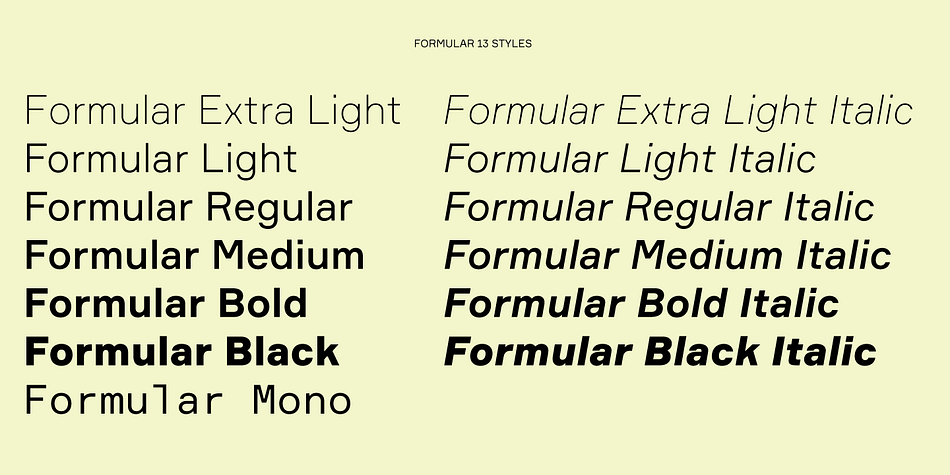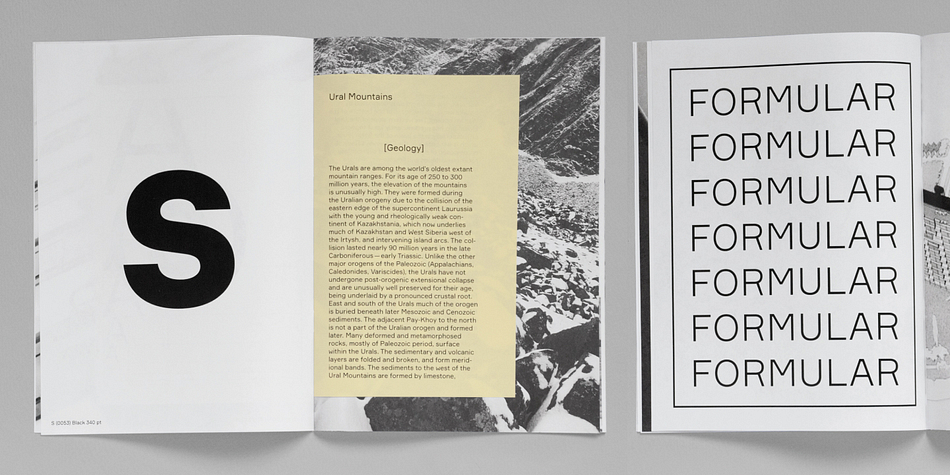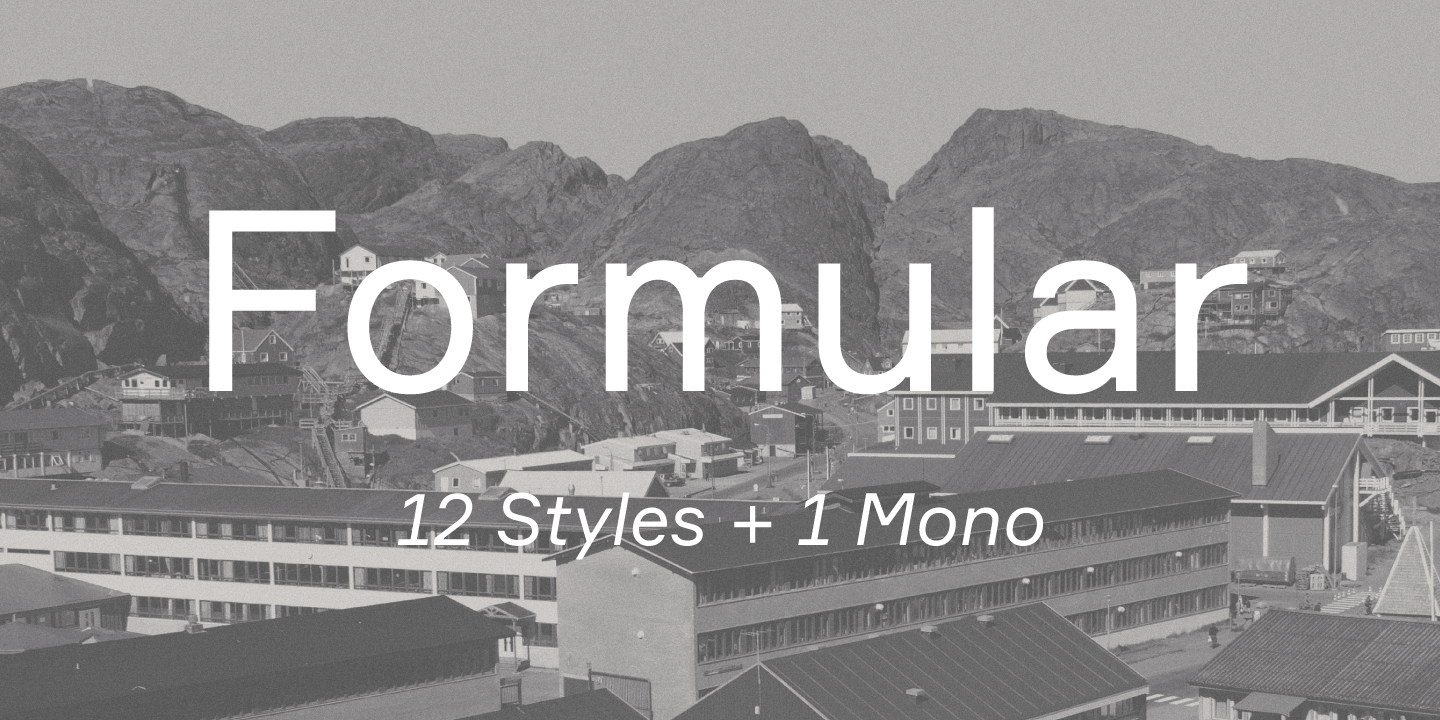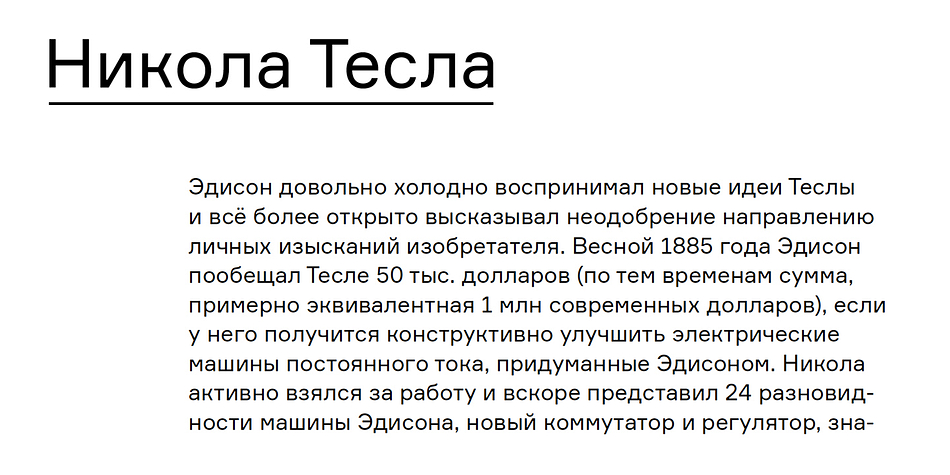
Formular
Designed by Gayaneh Bagdasaryan and Vyacheslav Kirilenko, Formular is a sans serif font family. This typeface has fifteen styles and was published by Brownfox.
If you were a grotesque in mid-20th-century Switzerland, you were expected to be serious and proper, if a little dull.
Unlike its dogmatic Modernist predecessors, Formular is a hip Swiss sans serif of the new generation.
Inspired by the utilitarian 19th-century grotesques, its precision and and versatility are combined with a slightly eccentric character.
A child of its time, it scoffs at the ideology of ‟ideal” forms, yet it is every bit as functional for all its idiosyncrasies, as any self-respecting Swiss sans.
Formular comes in five weights with corresponding italics and a monospace companion to the regular weight.
Each weight includes special extra-light punctuation, lining tabular and old style figures, case-sensitive punctuation, and stylistic alternates.